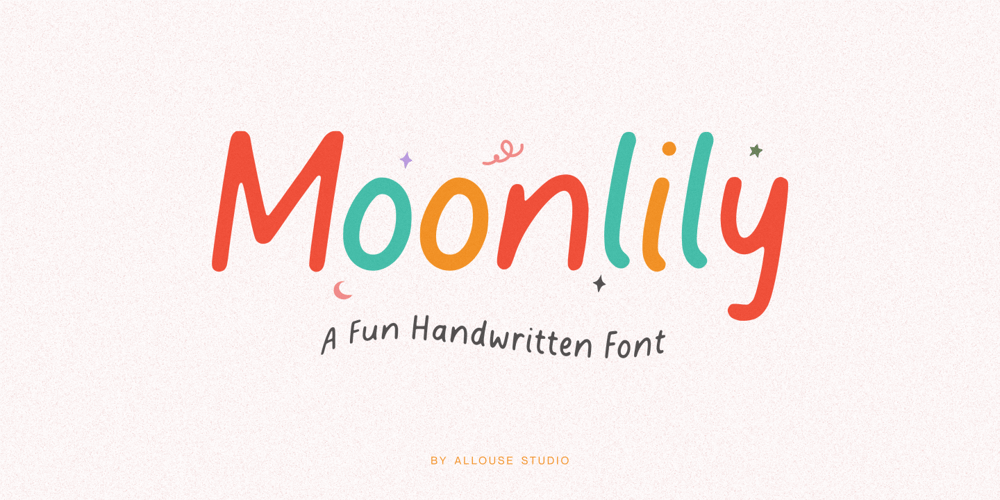
Moonlily
Moonlily font
Moonlily Font Family was designed by Fachrizal Yusuf and published by Allouse Studio. Moonlily contains 1 styles and family package options. Moonlily a Fun Handwritten Font.Moonlily is perfect for any titles, logo, product packaging, branding project, megazine, social media, wedding, or just used to express words above the background.Moonlily also come with Multi-Lingual Support.Enjoy the font, feel free to comment or feedback, send me PM or email. Thank You!